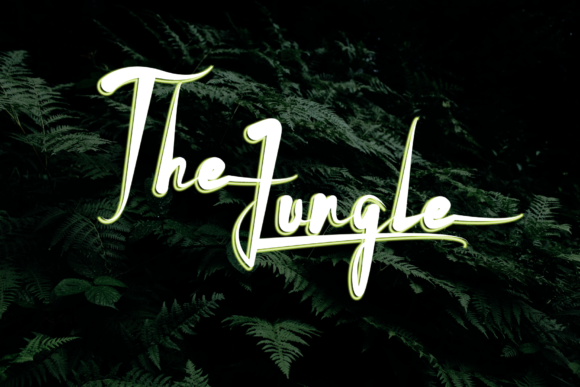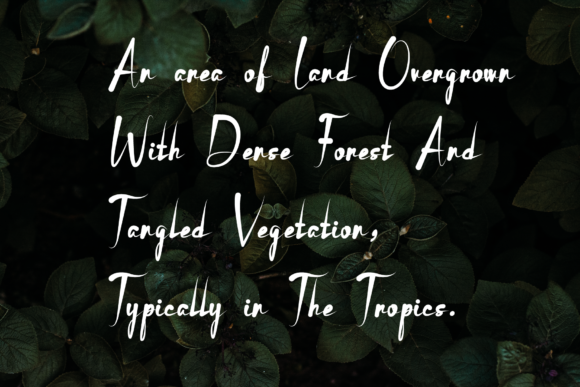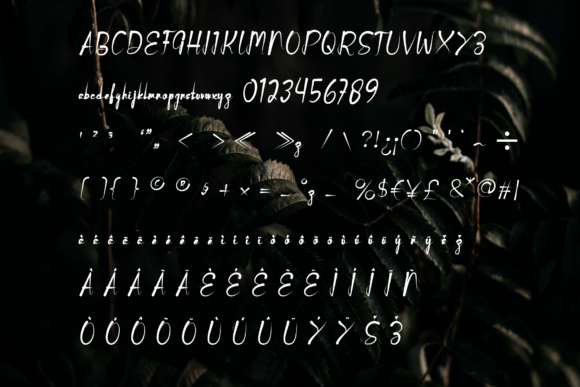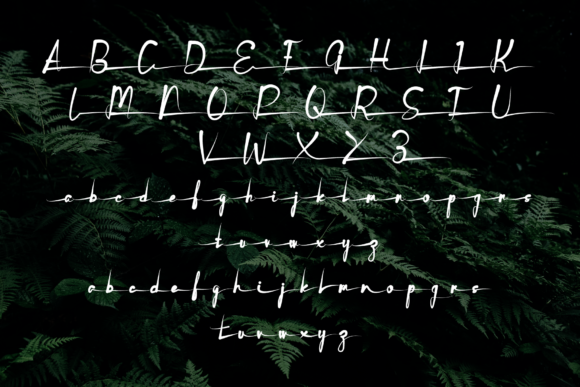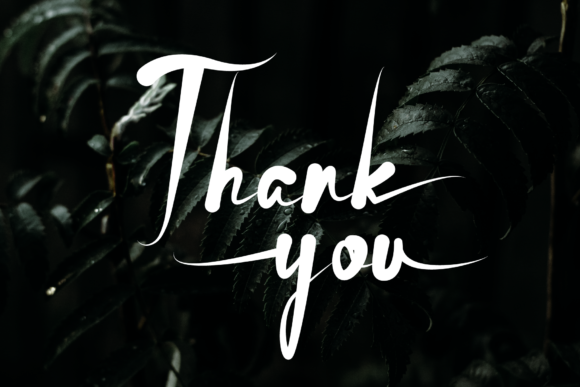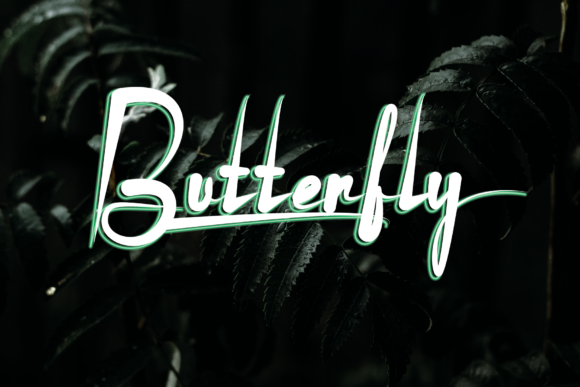
The Elegance of Butterfly Font: A Designer’s Delight
A First Impression: What I Love About Butterfly Font
The Butterfly font has quickly become a favorite in my design arsenal, and here’s why:
- ✨ Elegant and Balanced Design: The font strikes a perfect balance between being too thin and too thick, making it versatile for various design projects.
- ✅ PUA Encoding: With PUA encoding, accessing glyphs and swashes is a breeze, allowing for endless creative possibilities.
- 💫 Timeless Classic Calligraphy Inspiration: The font’s inspiration from classic calligraphy gives it a sophisticated and timeless feel.
An Honest Review: The Not-Perfect-but-Almost-There Part
No font is perfect, and Butterfly is no exception. Here are a few quirks to consider:
- 🤔 Limited Use in Body Text: While beautiful, script fonts like Butterfly might not be the best choice for lengthy body text due to readability concerns.
- ⚠️ Requires Some Learning Curve: Mastering the use of OpenType features and glyphs might take some time, especially for beginners.
Butterfly font was designed with the intention of capturing the essence of timeless classic calligraphy while infusing it with a contemporary twist. The designer aimed to create a font that was not only elegant but also versatile and user-friendly. Inspired by the delicate beauty of butterflies, the font embodies a sense of freedom and creativity.
| What is PUA encoding? | PUA (Private Use Area) encoding allows for easy access to glyphs, swashes, and other special characters in a font, making it simpler to use in designs. |
| Is Butterfly font suitable for body text? | While beautiful, script fonts like Butterfly are generally recommended for headings and titles due to readability concerns in lengthy body text. |